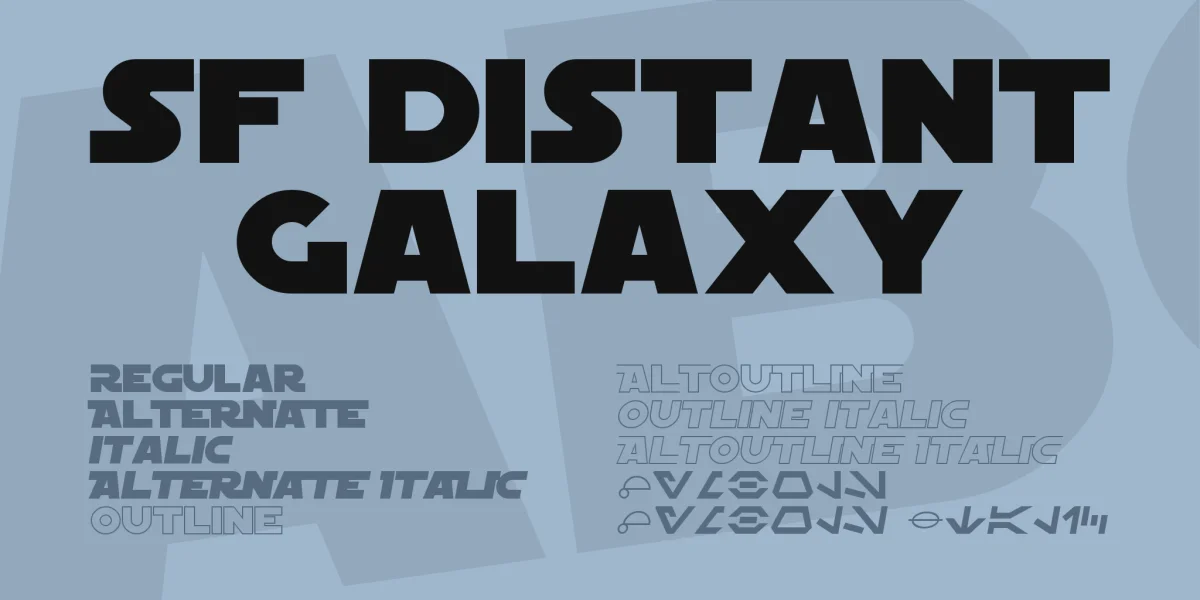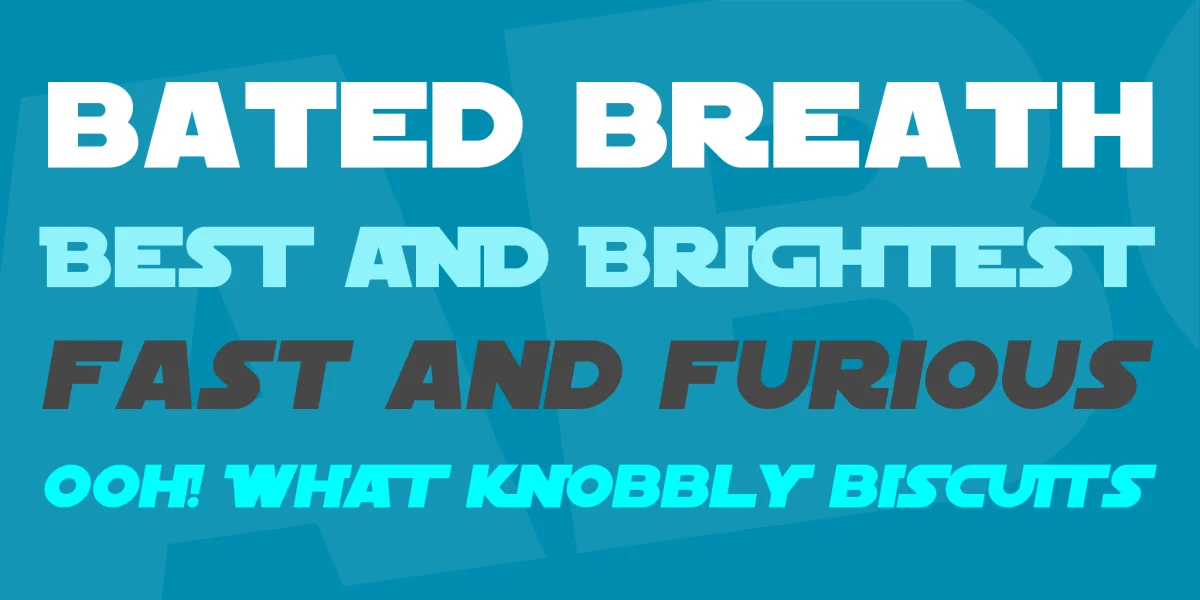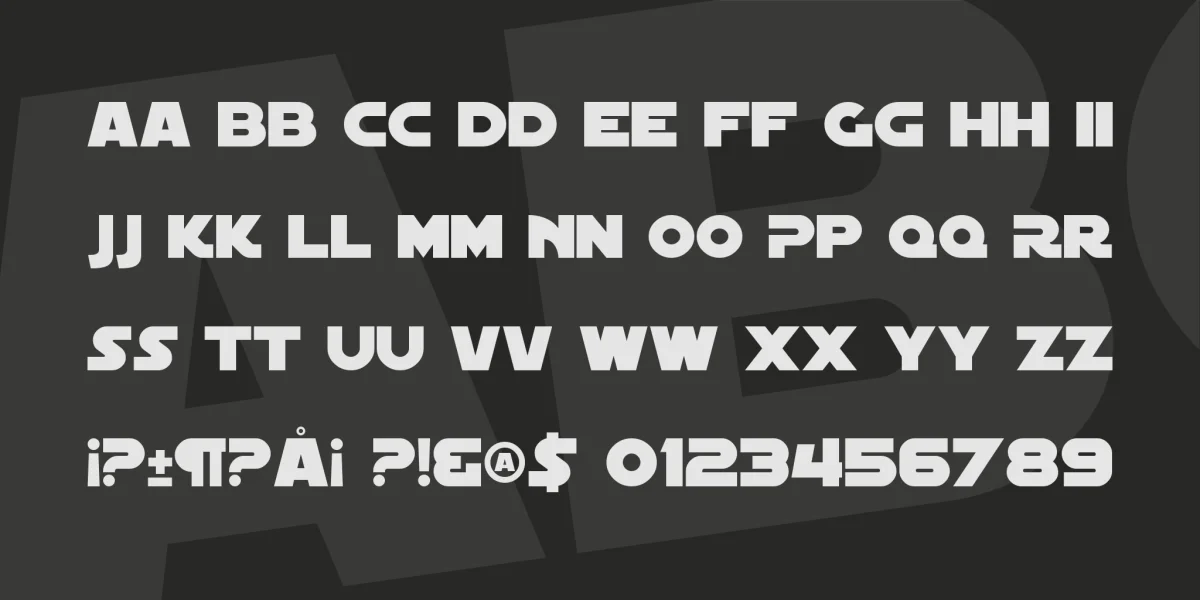
Inspired by a great adventure in another galaxy, SF Distant Galaxy contains lowercase and uppercase letters, numbers, punctuation, and accented characters.